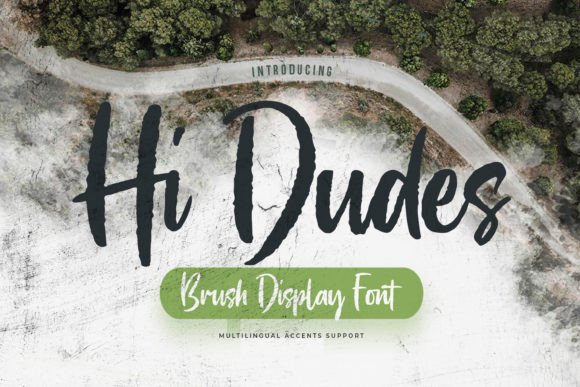
Prepare to be captivated by the captivating strokes of Hi Dudes Font, an extraordinary creation by Gassstype Studio that embodies the essence of brush display fonts. This masterpiece is not merely a collection of letters; it's an artistic expression waiting to adorn your creative endeavors.
Step into a realm of endless possibilities with Hi Dudes. Crafted with meticulous precision, it exudes a textured natural style that whispers sophistication and elegance. Each character dances upon the page with a fluidity and grace that will leave you spellbound.
Unleash your imagination and let Hi Dudes elevate your designs to remarkable heights. Its bold strokes command attention, while its subtle nuances evoke a sense of authenticity and warmth. Whether you're crafting a stunning logo, a heartfelt invitation, or a captivating poster, Hi Dudes will add a touch of brilliance that sets your creations apart.
Dive into the vibrant world of Hi Dudes and experience the joy of effortless creativity. Its versatility knows no bounds, making it the perfect companion for a myriad of projects. From enchanting product packaging to stylish letterheads, Hi Dudes seamlessly adapts to your every whim.
Don't resist the allure of Hi Dudes. Embark on a typographic adventure where brush strokes weave tales of elegance and charm. Let its natural beauty enhance your designs and captivate the hearts of all who behold them.